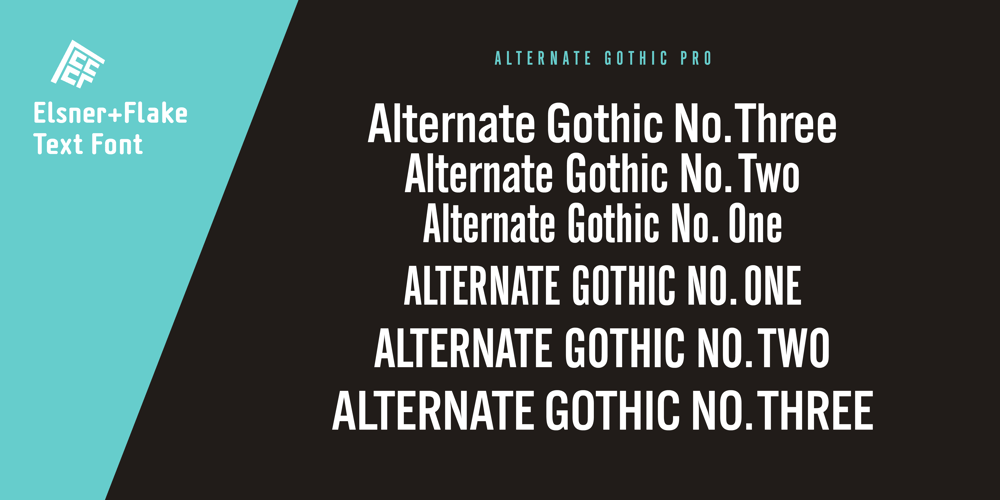
Alternate Gothic Pro EF Font Family was designed by Morris Fuller Benton, E+F Design Studio and published by Elsner+Flake. Alternate Gothic Pro EF contains 3 styles and family package options. In 1903, the typeface family Alternate Gothic was developed for ATF (American Type Foundry) by Morris Fuller Benton. It was Benton’s intent to solve many diverse layout problems with the development of a narrow Sans with different width values. The Alternate Gothic enjoys great popularity to this day. Therefore, Elsner+Flake re-worked the typeface family, added all European fixed accents and complemented it with an Antique version.